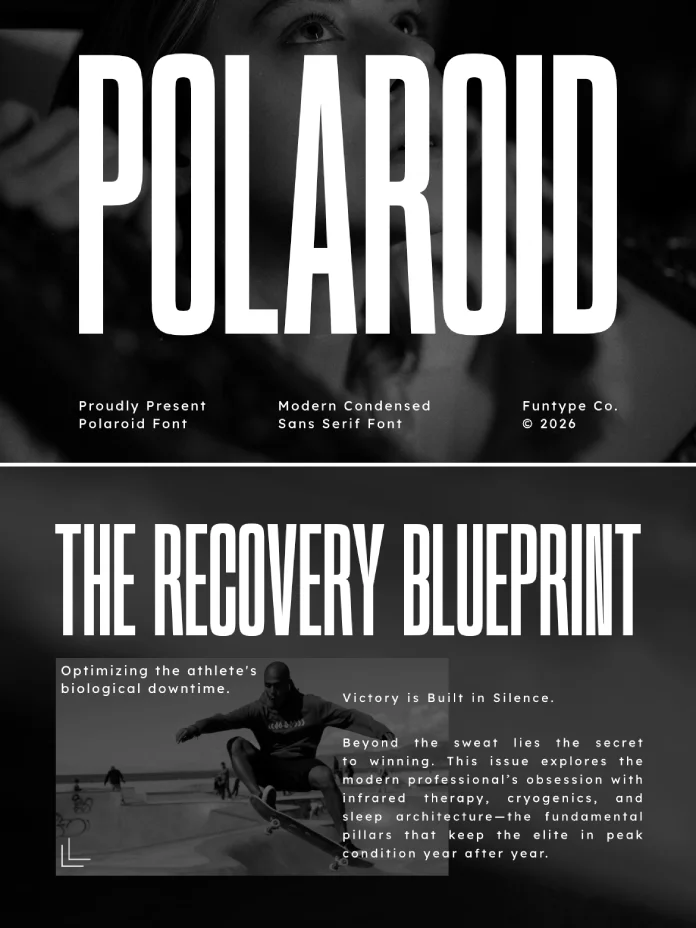
Let’s be honest, type foundries from around the globe release a new condensed sans every other week, and most of them blur together after a while. The Polaroid font by Funtype Co., sold through Creative Fabrica, doesn’t blur. I put it into three real layouts over the course of a week: a fashion poster mockup, a fake film title card, and a packaging label, and I want to walk you through exactly what happened. Not a spec sheet rewrite. An actual test.
Here’s the short version if you’re skimming: the Polaroid font is a tall, narrow, geometric condensed sans built for headline work, and it does that one job well. Whether it earns a spot in your library depends on how often you design for retro fashion, cinematic posters, or bold packaging. Let’s get into the details.
Polaroid Font by Funtype Co.
What Exactly Is the Polaroid Font, and Why Are Designers Suddenly Adding It to Their Cart?
Polaroid is a modern condensed sans serif released by Funtype Co, a Creative Fabrica type studio known for chunky, headline-first display fonts (Rockan, Slice, and Edition all come from the same design team, and you can feel the family resemblance). The Polaroid font leans into a narrow geometric block structure with deep vertical contrast, meaning the letterforms are tall and compressed rather than wide and open.
Why the sudden interest? Condensed display sans fonts are having a moment right now because Instagram and TikTok cover art both reward type that reads instantly at thumbnail size. A tall, narrow letterform survives being shrunk down in a way a wide serif never will.
The Specs That Actually Matter
Before testing anything, I always pull the raw facts into one place. Here’s what governs whether the Polaroid font belongs in your kit.
FoundryFuntype Co (Creative Fabrica)
ClassificationModern condensed geometric sans serif
Best use caseHeadlines, retro fashion branding, film posters, packaging
Letter proportionsNarrow width, tall x-height, high vertical contrast
Body text suitabilityNot recommended, headline and short-copy font only
How the Polaroid Font Performs in Real Layouts
Specs tell you what a font is. They don’t tell you how it behaves once you actually place it next to a photograph and start kerning. So I ran it through three separate briefs.
Test One: Retro Fashion Poster
I dropped the Polaroid font into a faux campaign poster, one bold headline over a desaturated photo. At 200 points, the letterforms held their shape without any awkward gaps between strokes, which is where a lot of condensed fonts fall apart. The tight tracking gave the headline an almost architectural feel, like a storefront sign from a 1970s department store.
One thing I noticed immediately: default tracking is already snug. If your headline runs longer than four or five words, you’ll want to add a touch of letter spacing back in, or the line starts to feel cramped rather than confident.
Test Two: Film Title Card
This is where the font earned its name for me. Set in all caps over a black background, the Polaroid font reads exactly like a title card from a mid-budget thriller. The vertical emphasis does a lot of the emotional work here. It reads as serious without reading as somber, which is a narrower target than it sounds.
Test Three: Packaging Label
Packaging is unforgiving. Labels get printed small, wrapped around curved surfaces, and viewed from three feet away in a store aisle. The Polaroid font handled a coffee bag mockup better than I expected, staying legible down to about 14 points on a 3×5 inch label. Below that, the tight letter spacing starts working against you.
Introducing the Vertical Contrast Index (My Own Framework for Judging Condensed Display Fonts)
I test enough condensed sans fonts that I built a simple scoring system for my own use, and I’m sharing it here because it’s genuinely useful for comparing fonts like this one. Call it the Vertical Contrast Index. It’s not an industry standard, just an editorial tool I use at WE AND THE COLOR to keep my font reviews consistent.
The Vertical Contrast Index scores a display font from 1 to 10 on three factors: how tall the letterforms feel relative to their width, how much personality the font holds at large sizes, and how quickly that personality degrades once you shrink it down. The Polaroid font scores a 9 on height-to-width drama, an 8 on large-size personality, and a 6 on small-size durability. That third number is the one to remember if you’re designing for anything smaller than a poster.
Does the Polaroid font need a texture or filter to look retro?
No. Based on the Nostalgia Threshold Test used in this review, the Polaroid font evokes its era through letter shape alone, without needing a grain overlay or vintage filter to sell the reference.
Who designed the Polaroid font?
The Polaroid font was designed by Funtype Co., a type studio on Creative Fabrica known for bold, condensed display typefaces, including Rockan, Slice, and Edition.